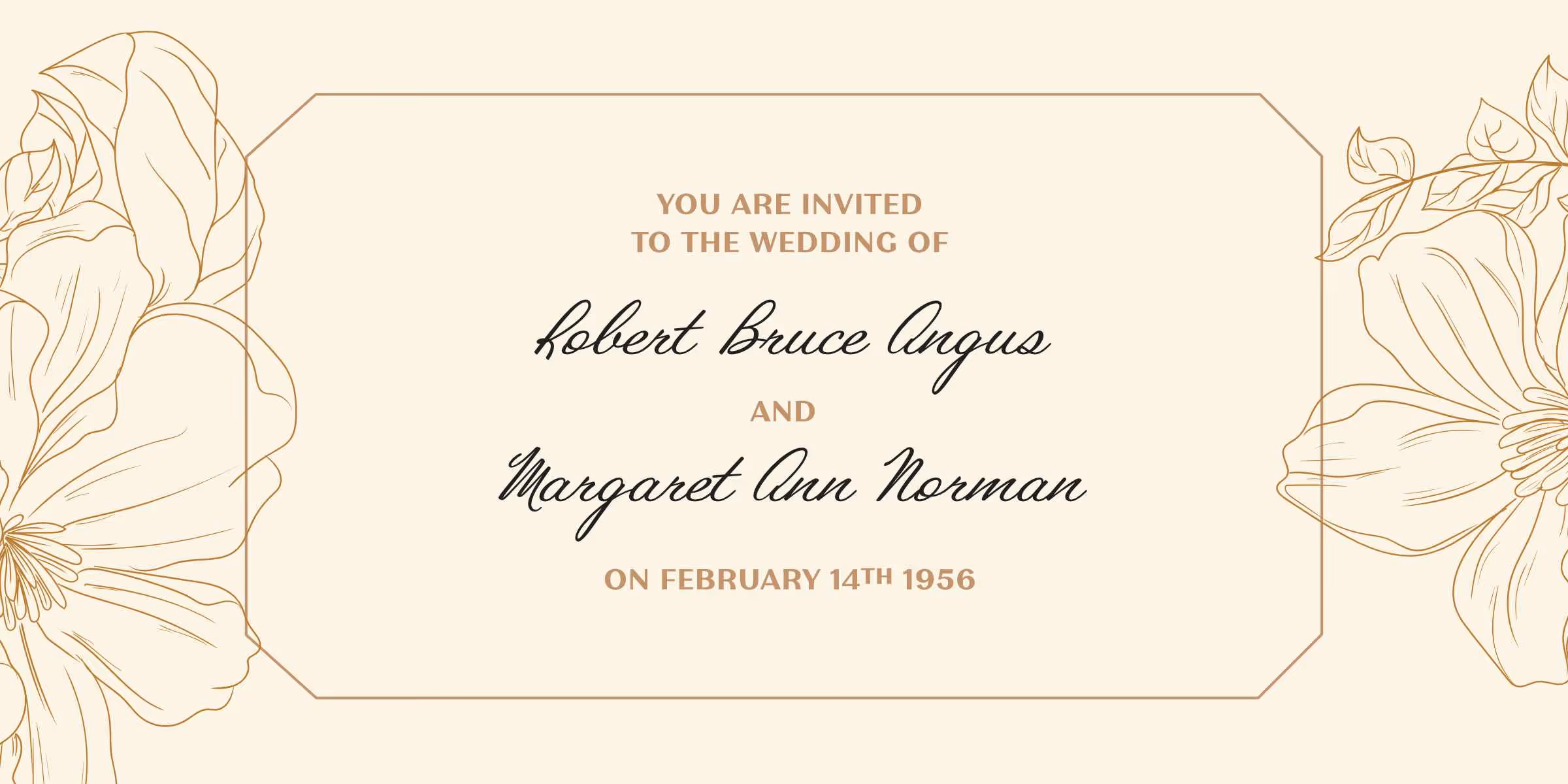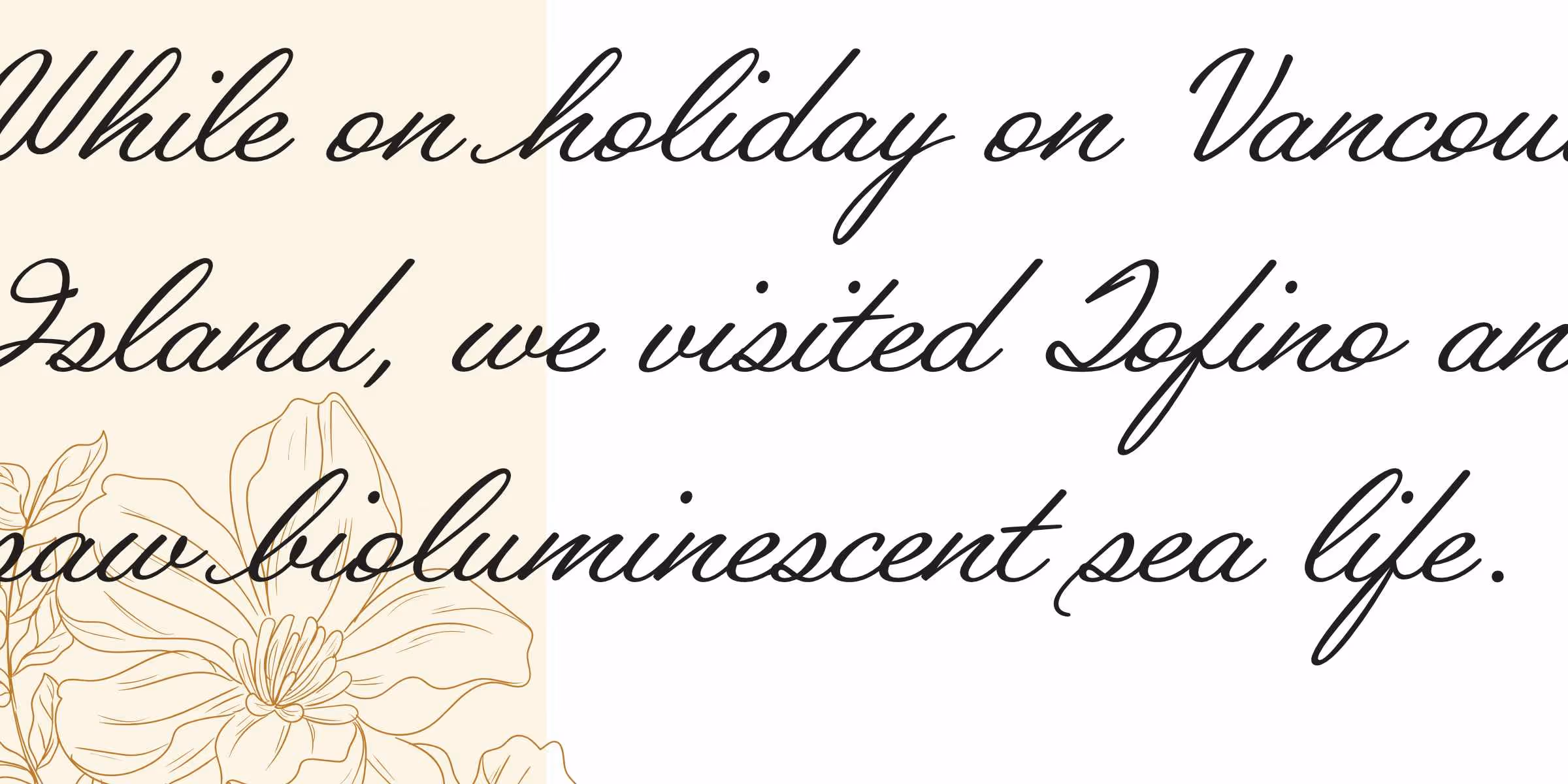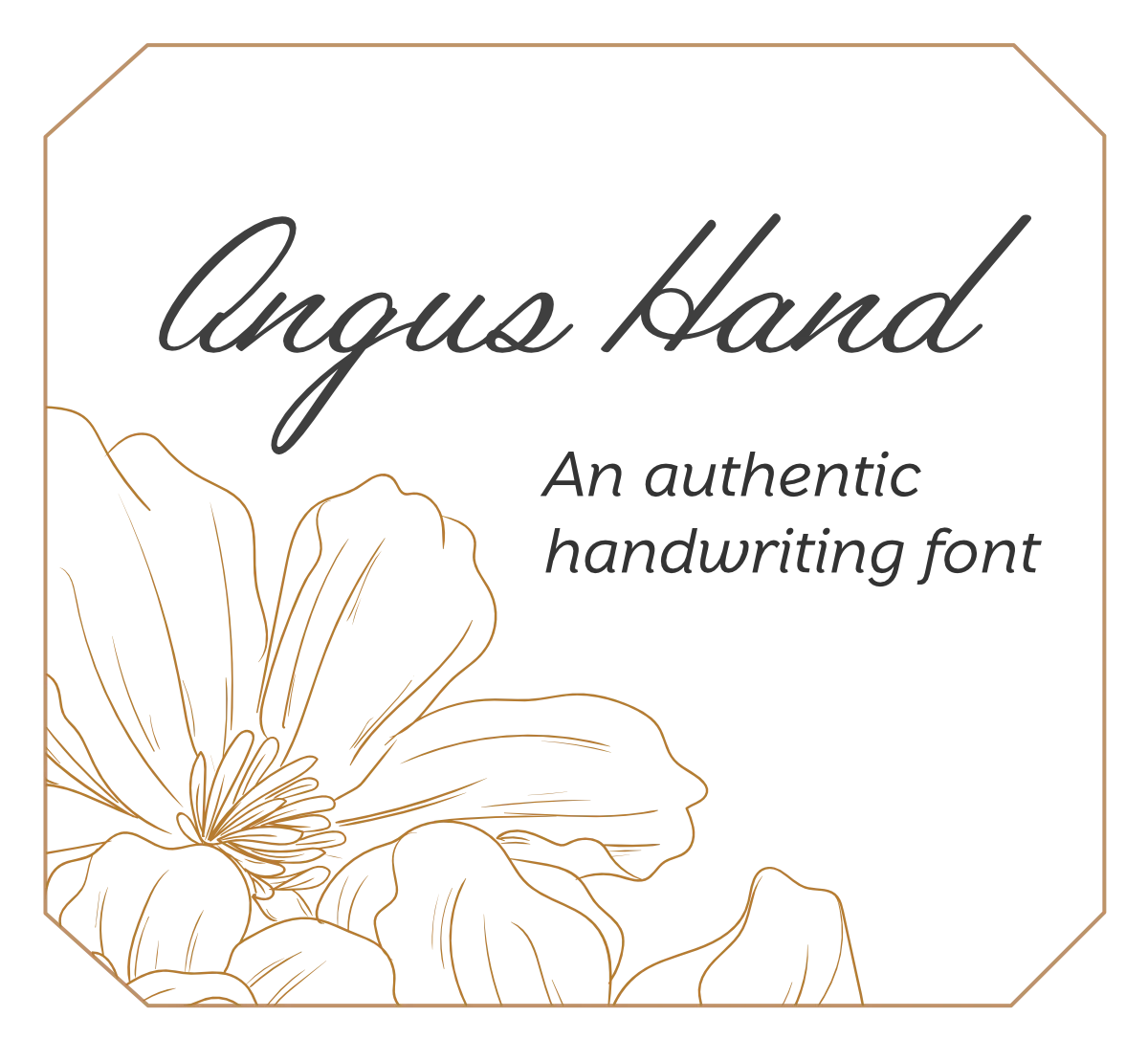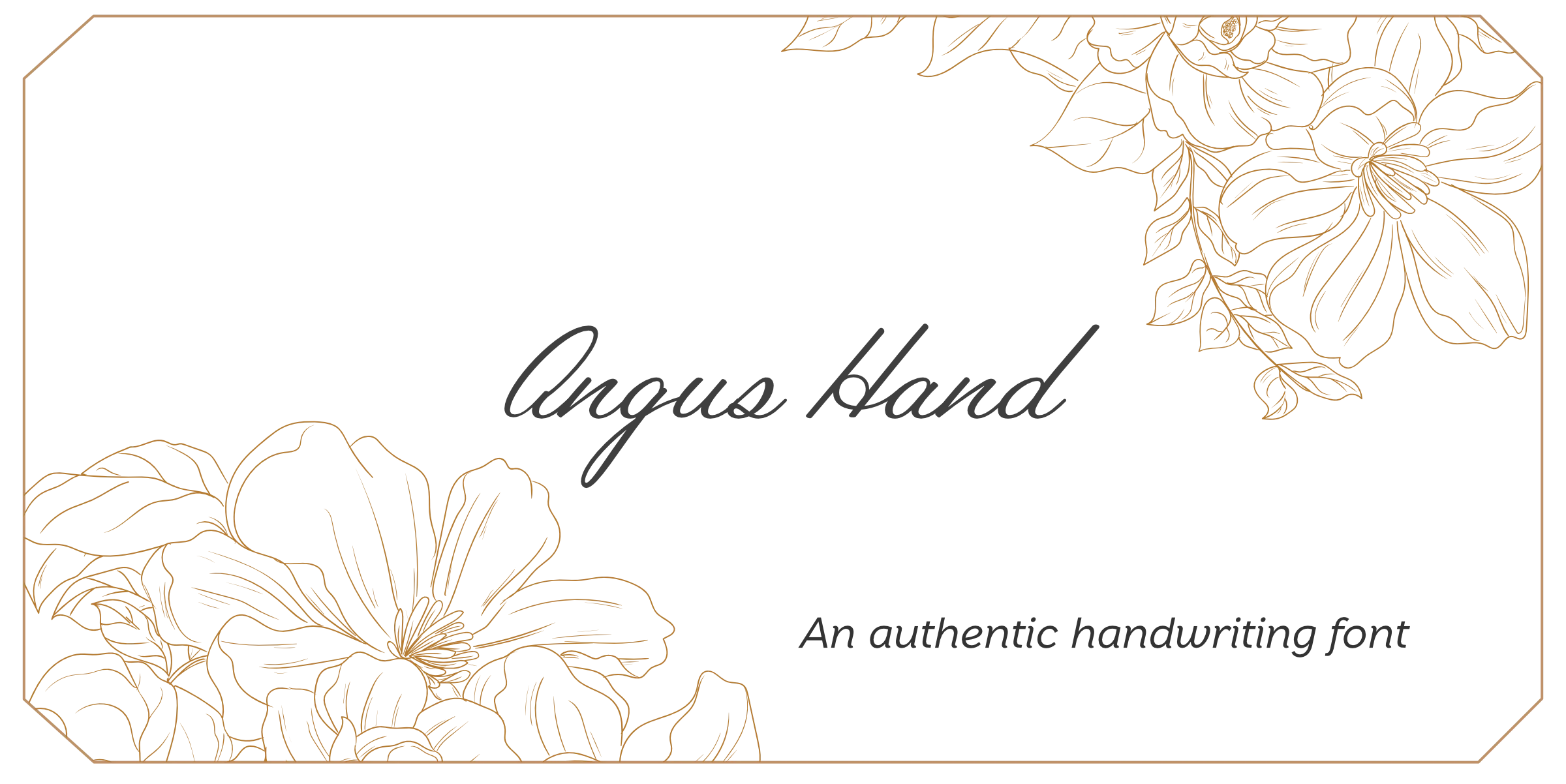
Angus hand is a set of authentic handwriting fonts remincent of a time before computers when sending hand-written letters was part of our daily lives. Based on samples of love letters written from Victoria, Canada in 1955—Angus Hand subtly conveys the love and care that was written into the content of those original letters.
The variable font simply goes from the casual style to the calligraphy style so you can fine tune the neatness level of the handwriting. Read more about variable fonts here.
Angus hand is based on the handwriting of my grandfather R.B.Angus. I traced the original letters he wrote to my nana and those drawings served as the casual style, which stays true to the imperfections that bring warmth to these letterforms. I then created a calligraphy style for a slightly more formal version of my grandfather’s writing.